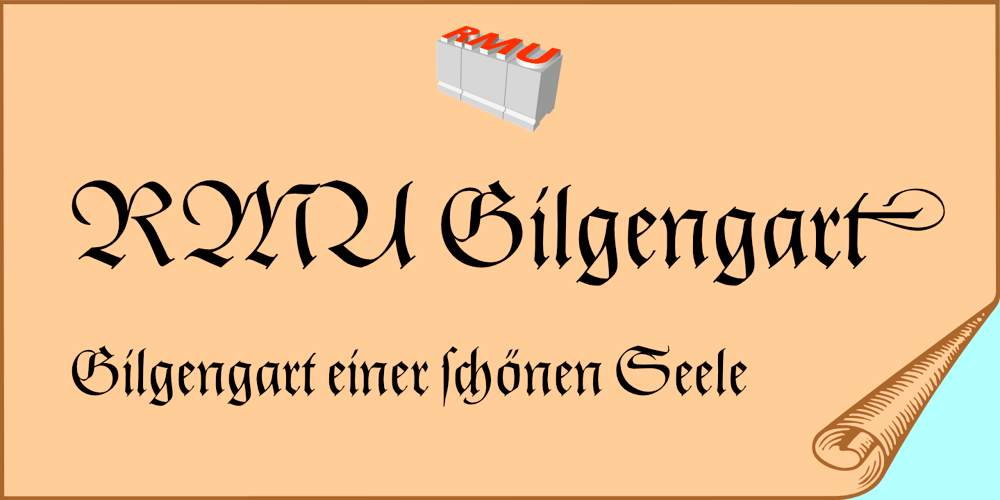
RMU Gilgengart
RMU Gilgengart font
RMU Gilgengart Font Family was designed by Ralph M. Unger and published by RMU. RMU Gilgengart contains 1 styles and family package options. RMU Gilgengart is a revival of Hermann Zapf’s beautiful calligraphic blackletter font which was cut and first released by Stempel in 1952.This font comes with fine ligatures and swash letters. Before working with this font it is recommended to activate both OT features Standard and Discretionary Ligatures in order to get access to all ligatures. RMU Gilgengart contains the following swash letters: D, L, h, f, g, k, round s, and t, whereby you should use the small letters at the end of a word or slogan only.